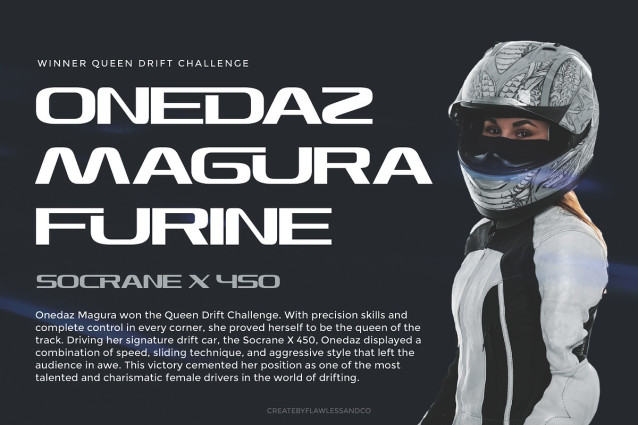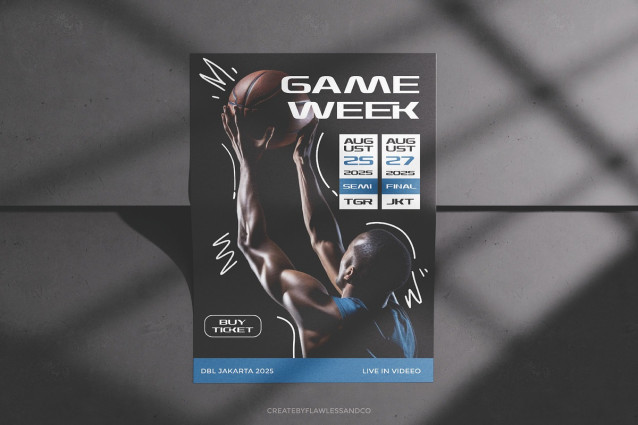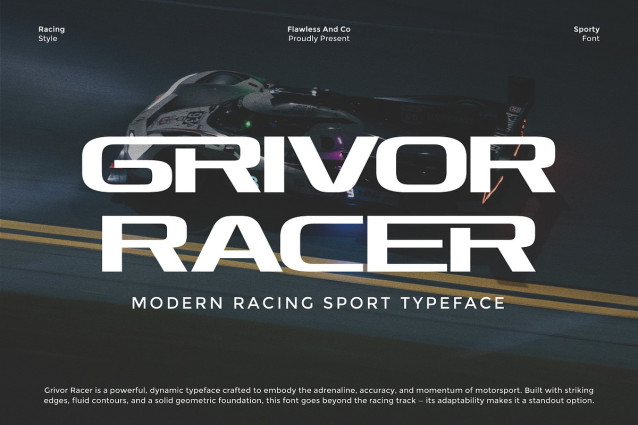
Grivor Racer Font
Grivor Racer Font is a bold and high-energy typeface designed to capture the speed, precision, and power of modern motorsport. With sharp cuts, aerodynamic curves, and a geometric build, this racing sport logo font is made to fuel adrenaline-driven designs. Perfectly balanced between aggressive style and versatile readability, Grivor Racer stands out not only on the track but also in branding, logos, posters, and sports-themed projects.